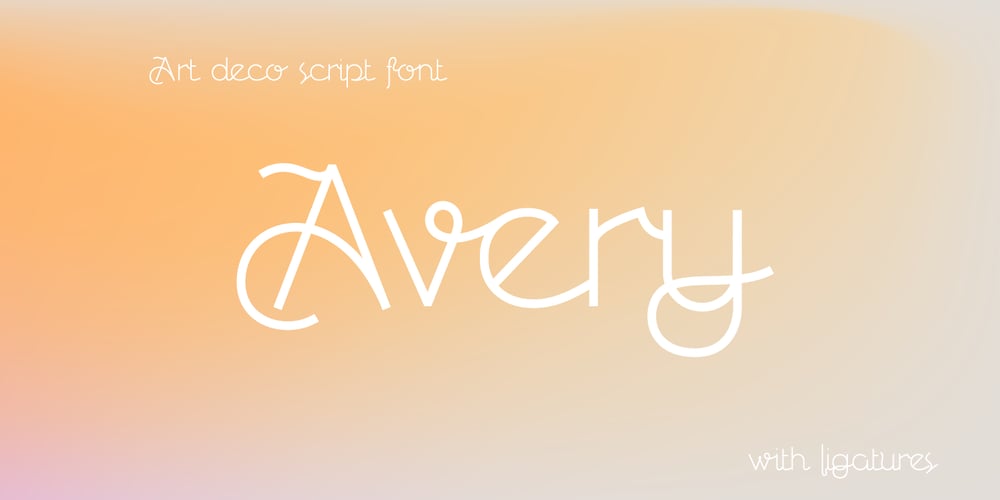
Avery
Avery font
Avery Font Family was designed by Roman Korolev and published by Kaer. Avery contains 1 styles and family package options. Hey! Introducing my new Art Deco inspired script style typeface Avery. This font perfect for beauty magazines, vintage branding, luxury posters, wedding headers, and advertising.What’s included?* Regular style* Uppercase and lowercase* Numbers* Symbols* PunctuationI hope you enjoy this font. Follow my shop to receive updates of products and the very hottest news! If you have any question or issue, please contact me: kaer.pro@gmail.com Please request to add additional characters and glyphs if you need! Thank you!